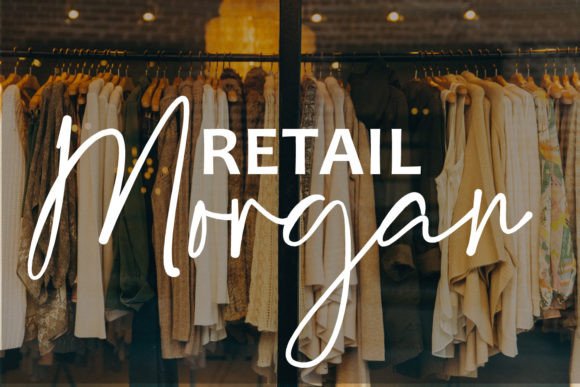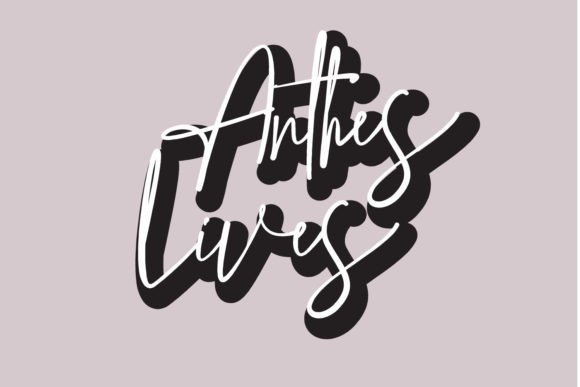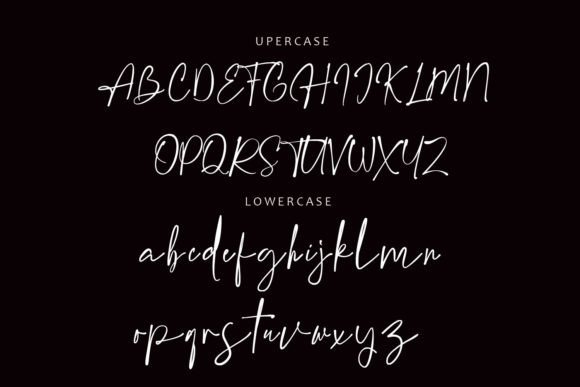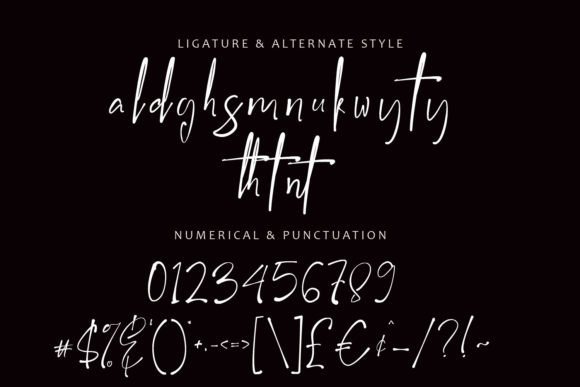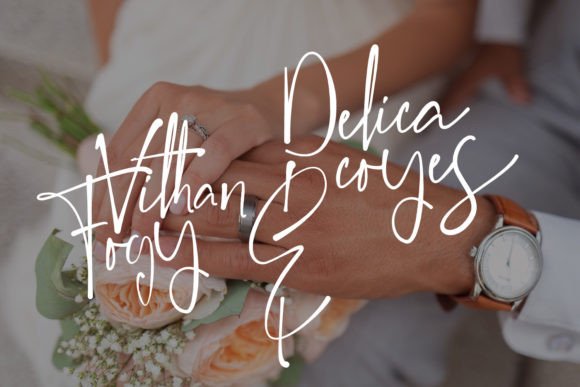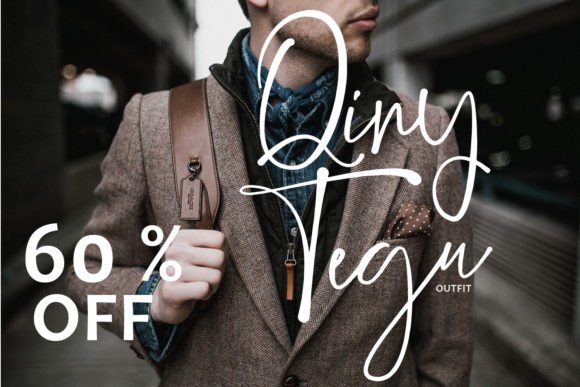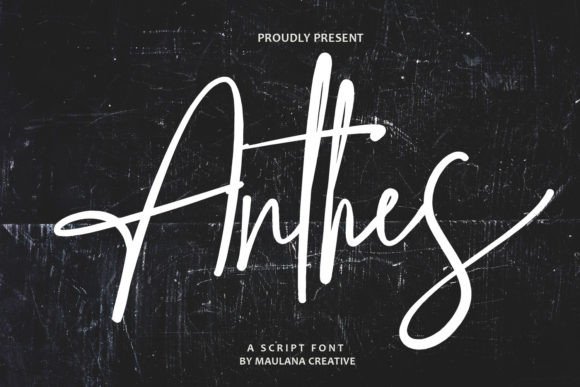
The Designer’s Delight: Anthes Font
I’ll never forget the moment I stumbled upon Anthes Font while working on a project that required a touch of elegance and sophistication. I had been searching for the perfect handwritten font for hours, trying out various options, but none seemed to fit the bill. That was until I laid eyes on Anthes – its classy calligraphic influences and contemporary feel instantly won me over. In this article, I’ll share my love for Anthes, its features, and how to make the most of it in your designs.
• ✨ Exquisite handwritten design with a perfect balance of elegance and modernity
• ✅ Classy calligraphic influences that add a touch of sophistication to any project
• 💫 Fresh and contemporary feel that’s perfect for a wide range of designs
• 🎨 Highly versatile and can be used for various projects, from branding to invitations
While Anthes is an amazing font, there are a few things to keep in mind:
• ⚠️ Some users may find the font a bit too ornate for certain projects, such as body text or long-form content
• 🤔 The font’s intricate details may not render well at very small sizes
3. Experiment with OpenType features, such as stylistic alternates and glyphs, to add more personality to your text
Anthes was designed with the intention of creating a beautiful, handwritten font that would bring a touch of elegance to any project. The designer, inspired by classic calligraphy and modern typography, crafted Anthes to be both sophisticated and fresh. The result is a font that’s perfect for designers, crafters, and creative hobbyists looking to add a touch of class to their work.
Q: What type of projects is Anthes best suited for?
A: Anthes is a versatile font that can be used for a wide range of projects, including branding, invitations, posters, and more.
Q: Is Anthes a difficult font to read?
A: While Anthes is an ornate font, it’s still highly legible, making it suitable for use in body text and other long-form content.